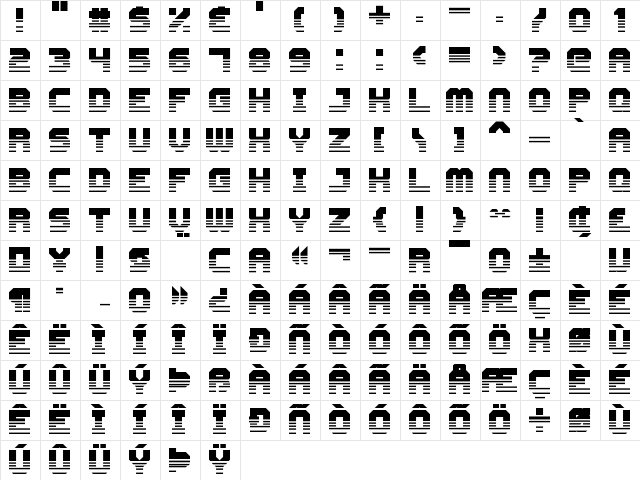
Complete Cyberspace Raceway Front Regular glyph index. Displaying only characters natively supported by Cyberspace Raceway Front Regular font.
Cyberspace Raceway Front has a distinctly futuristic character, with geometric precision and clean angles that feel at home in technology, gaming, and sci-fi contexts.
Pro Tip: Try Cyberspace Raceway Front with generous letter-spacing in UI labels and navigation - the geometric forms benefit from room to breathe.